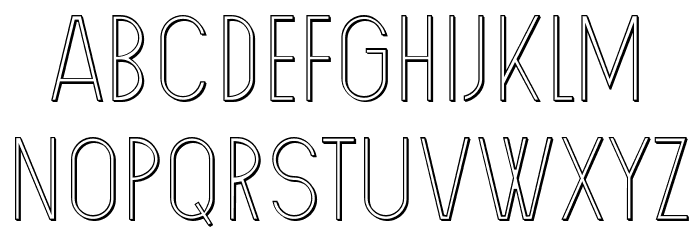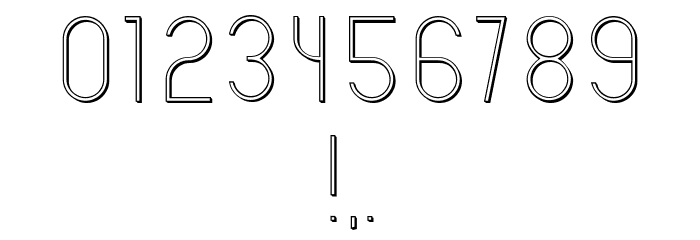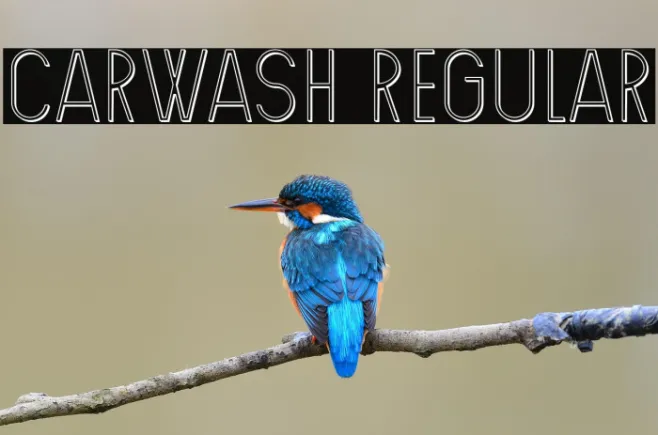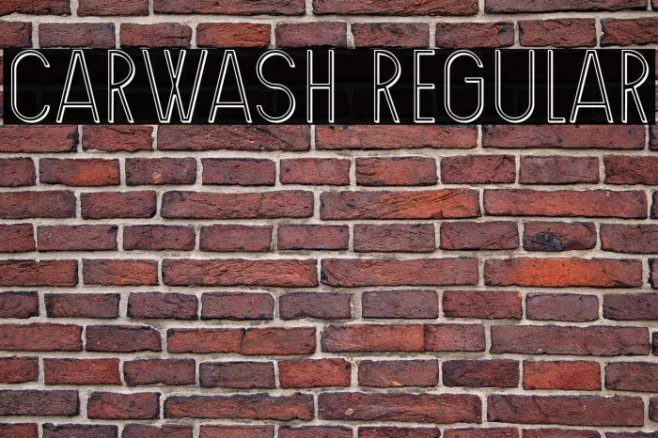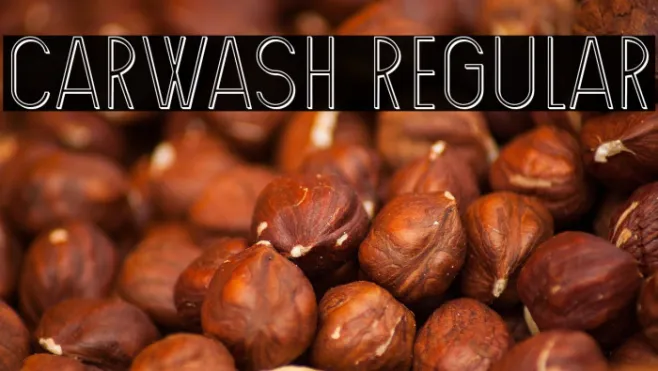
Carwash Regular Font
This font features a modern and sleek design with clean, geometric lines. Each character is outlined, giving it a hollow appearance that adds a unique, airy quality. The uppercase letters are tall and narrow, while the lowercase letters maintain a consistent height, creating a harmonious balance. The numerals are similarly styled, ensuring uniformity across all characters. The font's minimalistic and futuristic aesthetic makes it ideal for projects that require a contemporary and stylish look.
A modern, outlined font with geometric lines and a sleek, airy appearance.
- Font: Carwash Regular
- Proposed Projects: Ideal for branding, logos, posters, and any design requiring a modern and stylish touch.